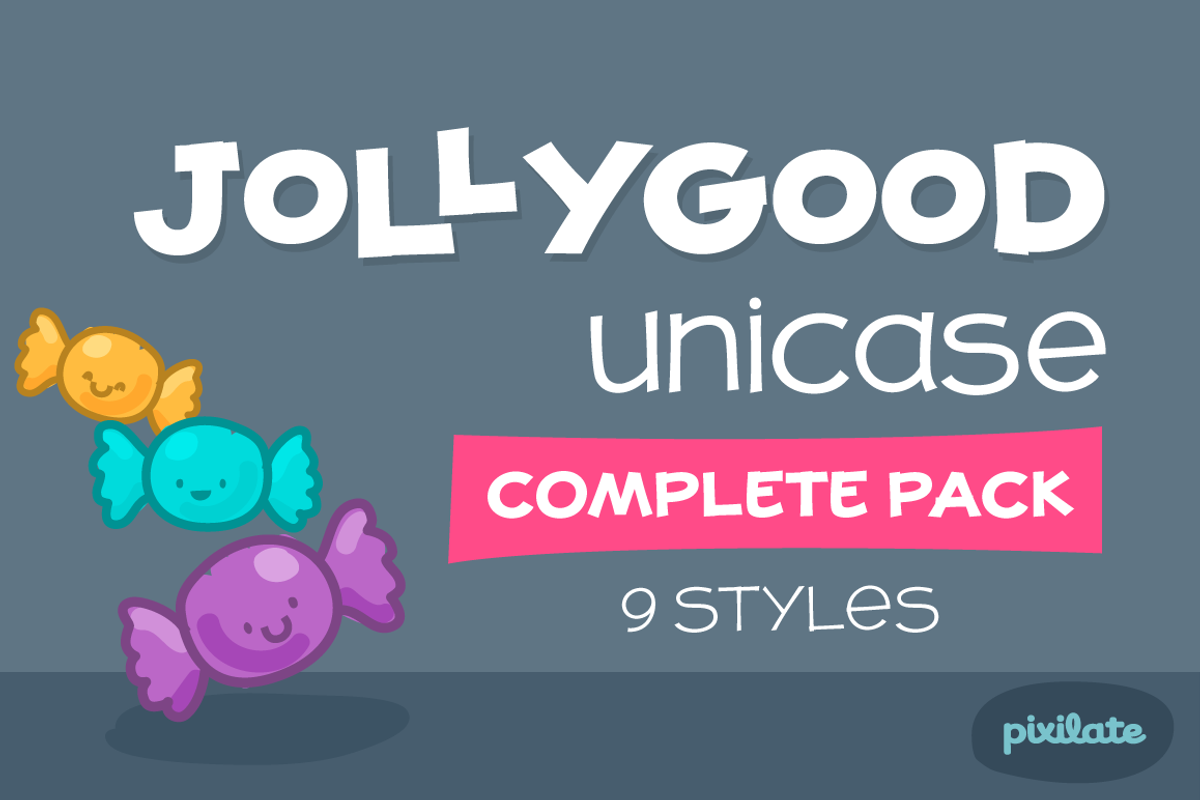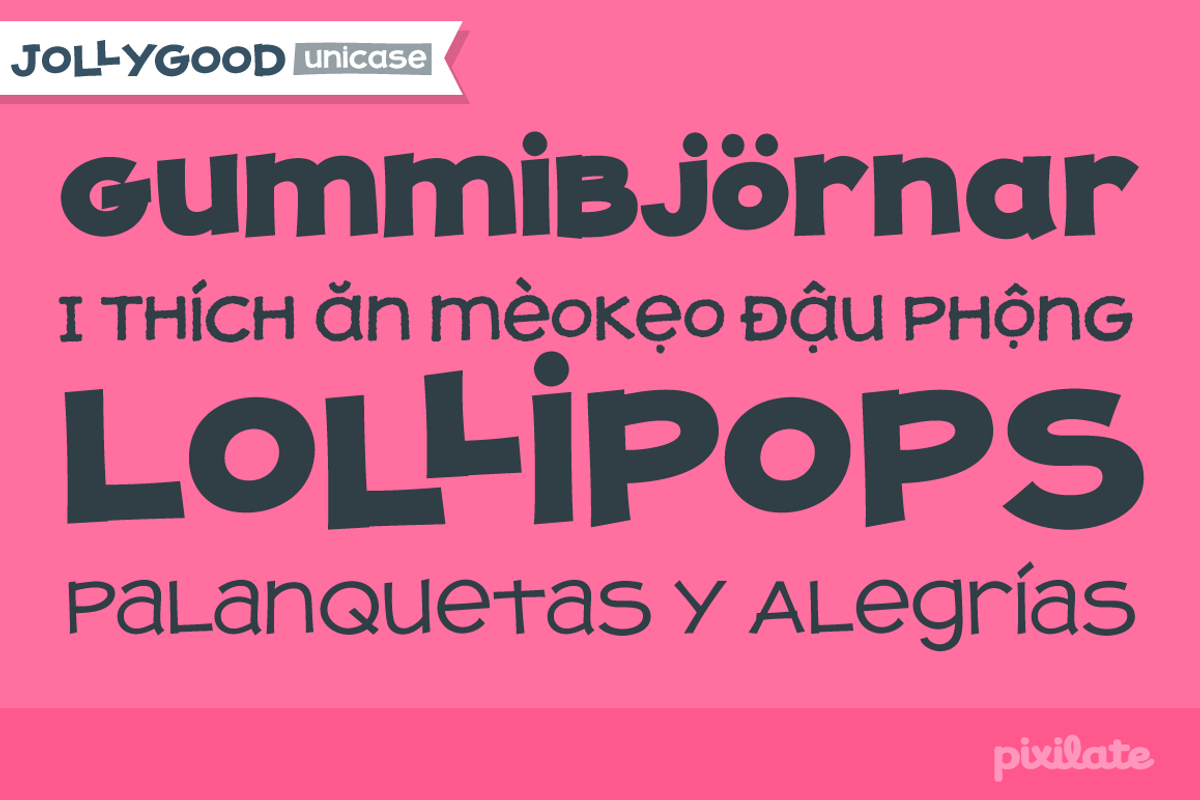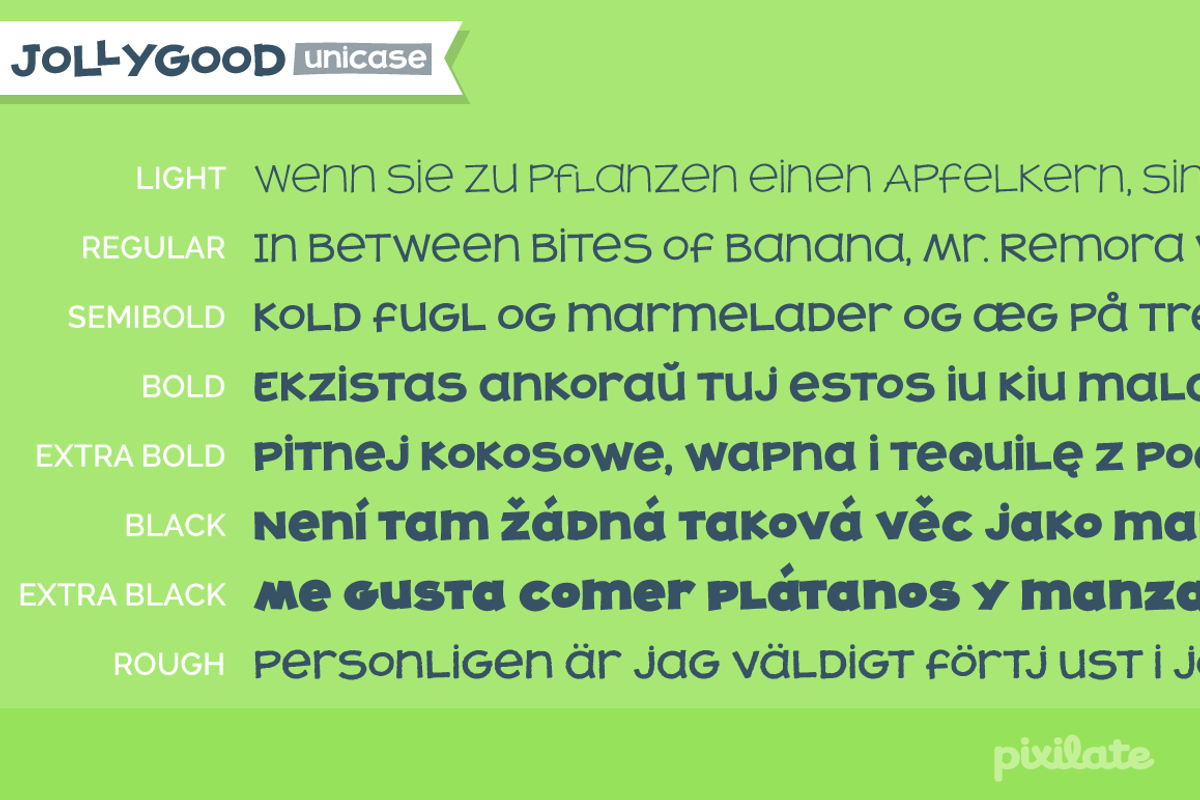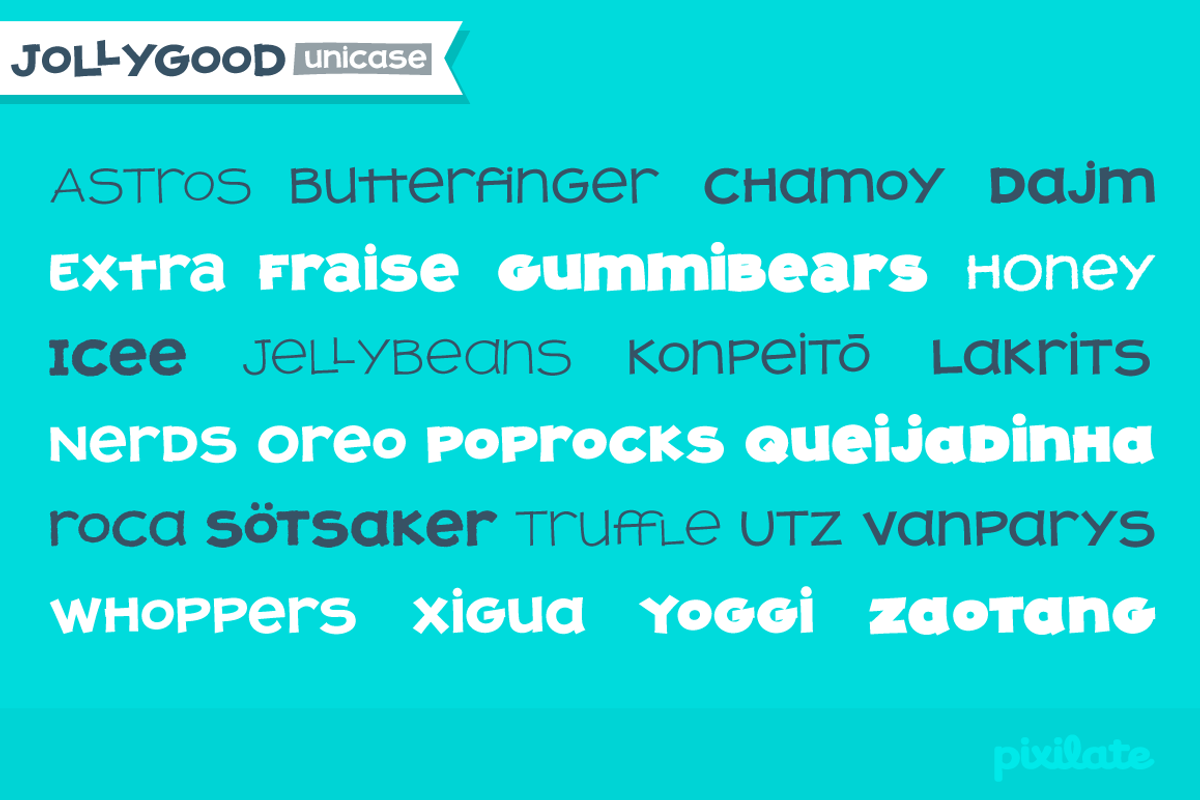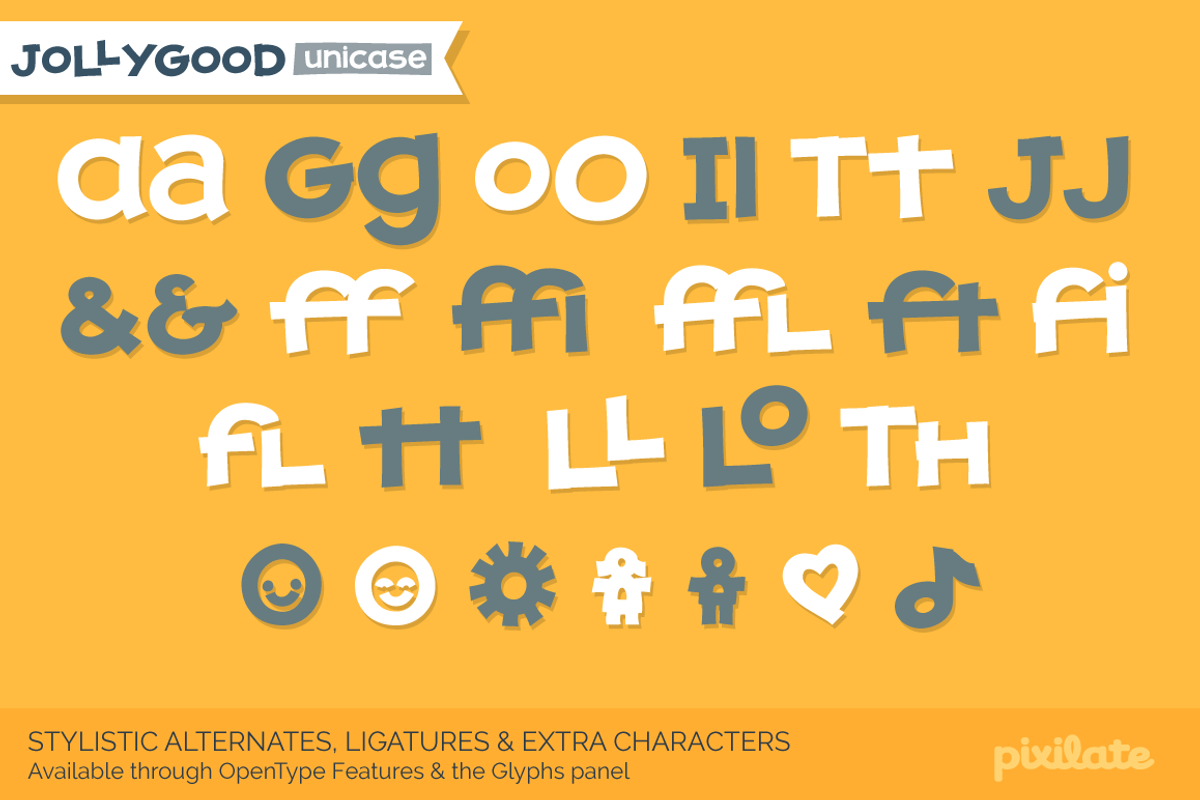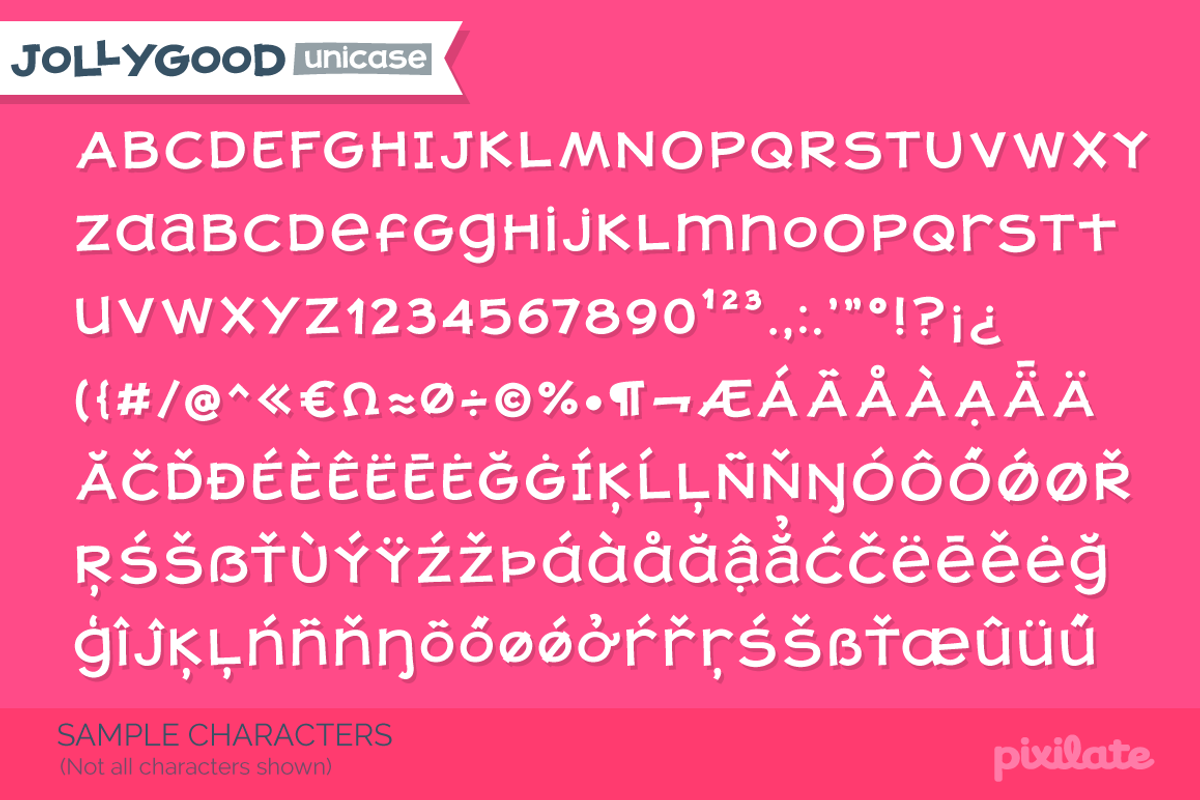
JollyGood Unicase Complete
Another member of the JollyGood family, this unicase version is a great way to add some fun to your headlines. It has a very complete character set, with support for western and central european languages.
I've also included ligatures, alternate characters and some fun dingbats.